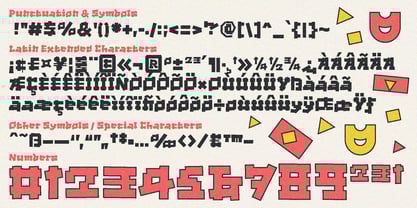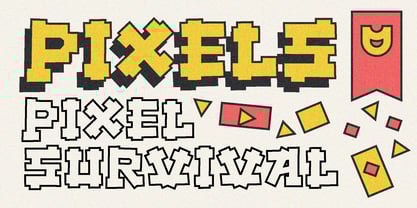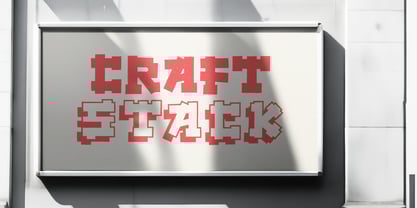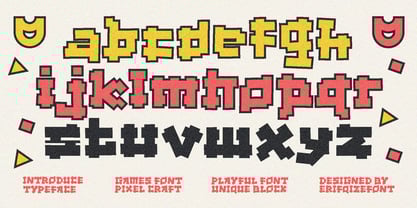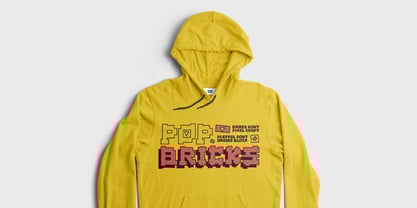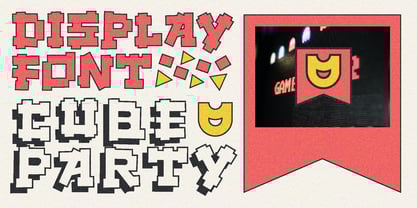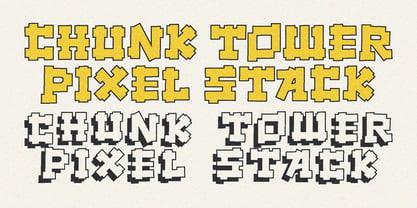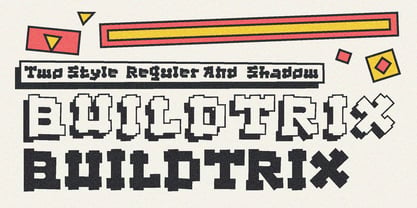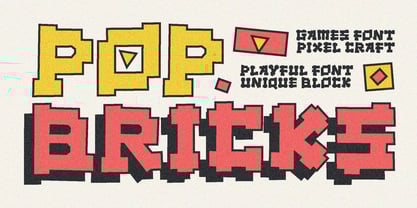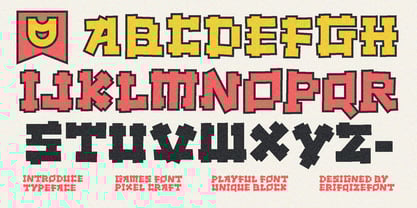
Pop Bricks
von Erifqizefont
Die Schriftfamilie Pop Bricks wurde von Eka Rifqi Setiawan entworfen und von Erifqizefont veröffentlicht. Pop Bricks enthält 2 Stile und Familienpaketoptionen. Mehr über diese Familie
POP BRICKS is a fun and chunky display typeface inspired by pixel games and toy blocks. Built with bold, blocky forms, this font brings playful energy to any design.
It comes in two styles: Regular and Shadow — perfect for creating layered, eye-catching titles. Whether for game logos, kids' content, or creative packaging, POP BRICKS makes your design stand out.
Includes multilingual support
Designer: Eka Rifqi Setiawan
Foundry: Erifqizefont
Introducing Erifqizefont, a Foundry led by Eka Rifqi Setiawan. Originating from Eka's experience as an Icon Designer, Erifqizefont specializes in bold, symmetrical Display Fonts with futuristic elements, occasionally exploring retro and whimsical styles. Based in Indonesia, Erifqizefont integrates the nation's cultural heritage into its designs. As a sole proprietor, Eka focuses on crafting superior, unique fonts, setting Erifqizefont apart in the industry.